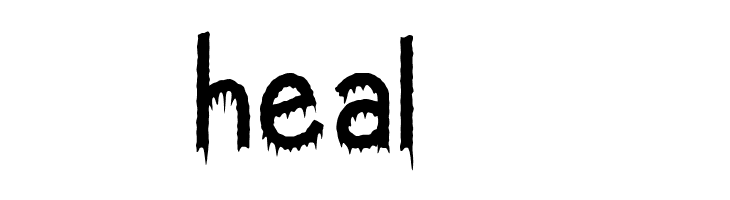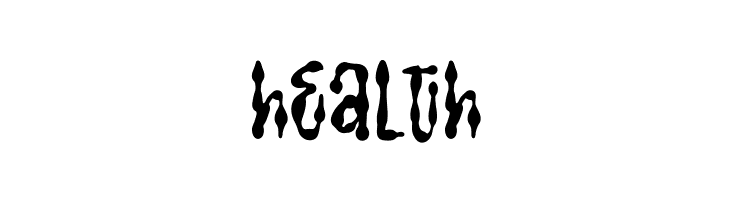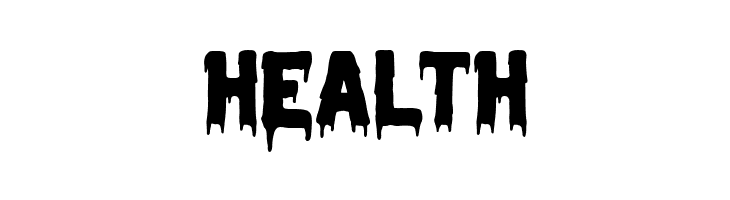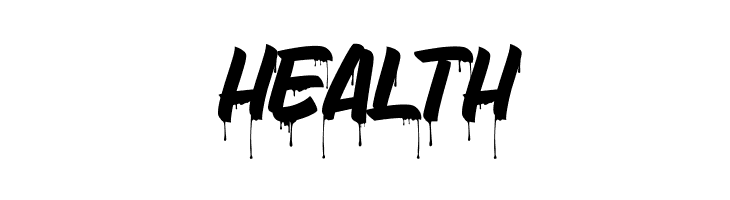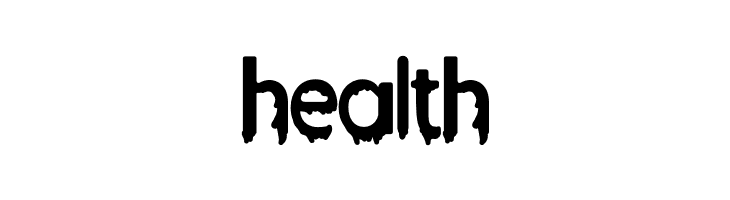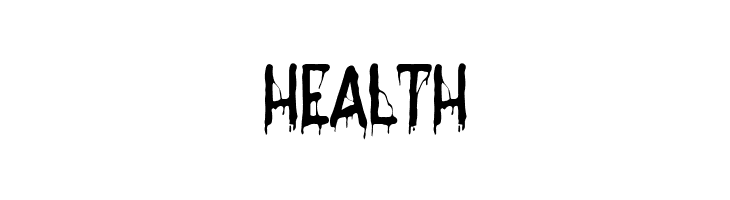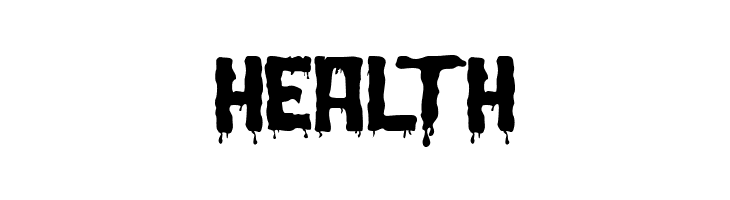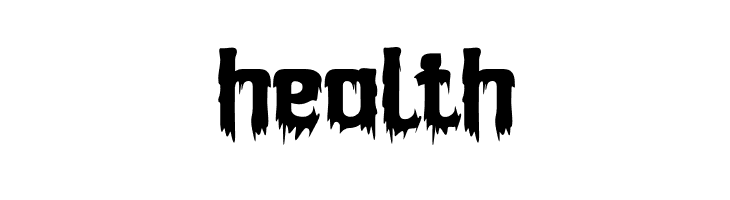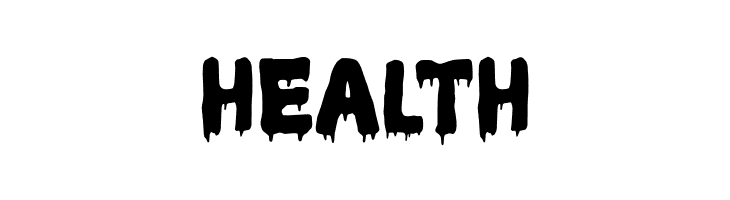
A spooky, dripping font perfect for horror themes.
A spooky, dripping font ideal for Halloween themes.
A bold, dripping font with a melting effect, perfect for spooky themes.
A bold, graffiti-style font with a distinctive dripping effect.
A spooky, dripping font ideal for horror themes.
A bold, dripping font perfect for spooky and horror-themed designs.
A spooky, dripping font ideal for Halloween themes.
A bold, dripping font perfect for horror-themed designs.
A bold, jagged font with a dripping, eerie style perfect for horror themes.
A playful, spooky font with a dripping, melting appearance.